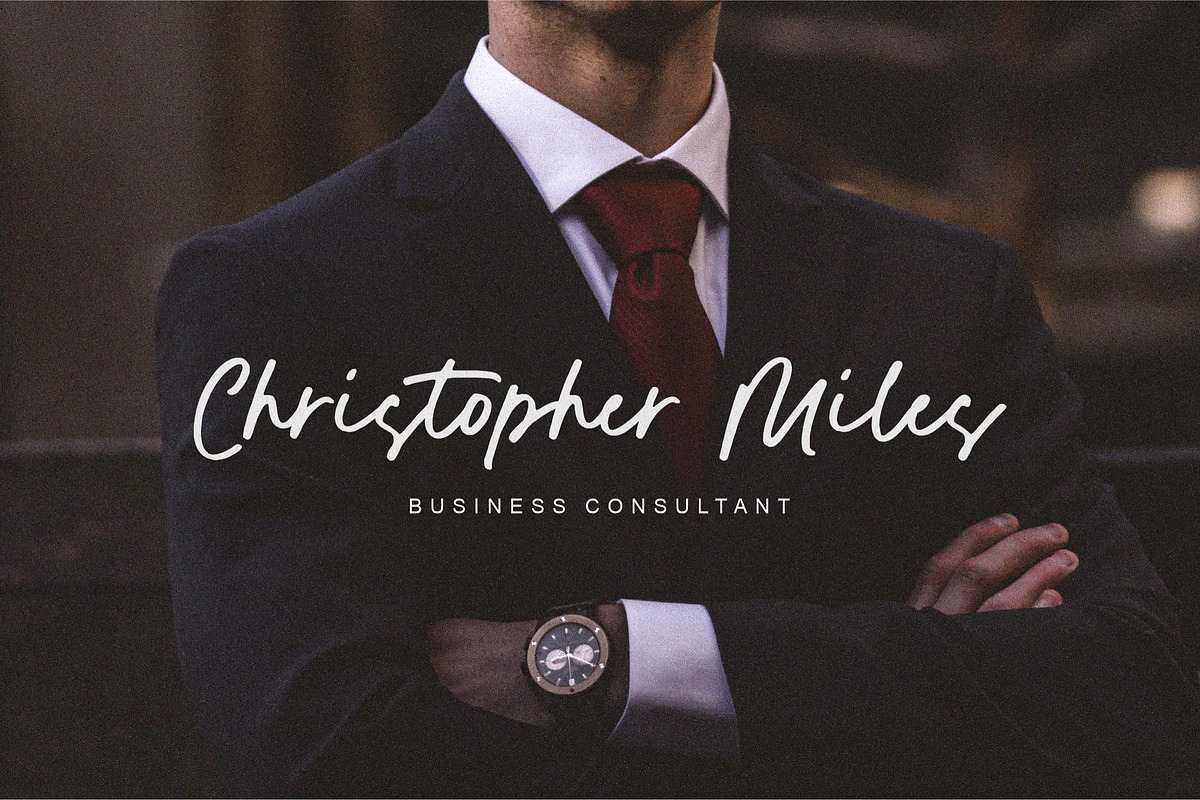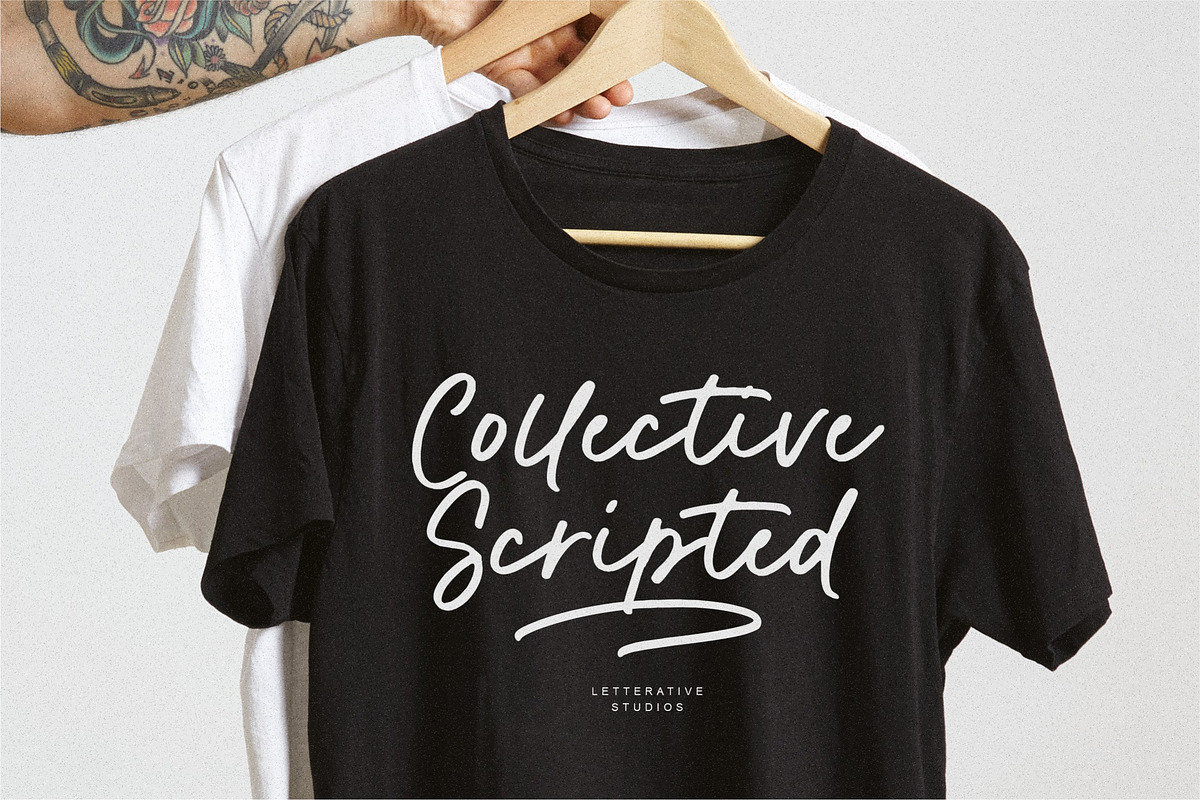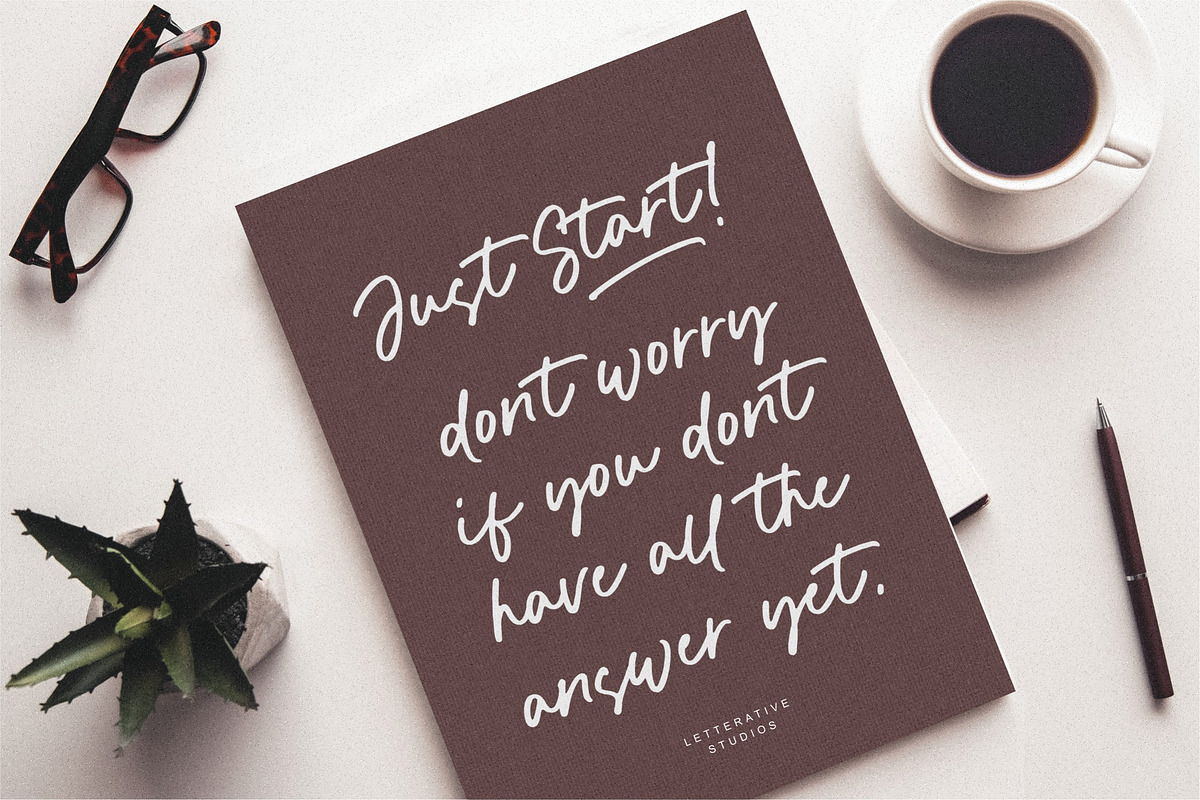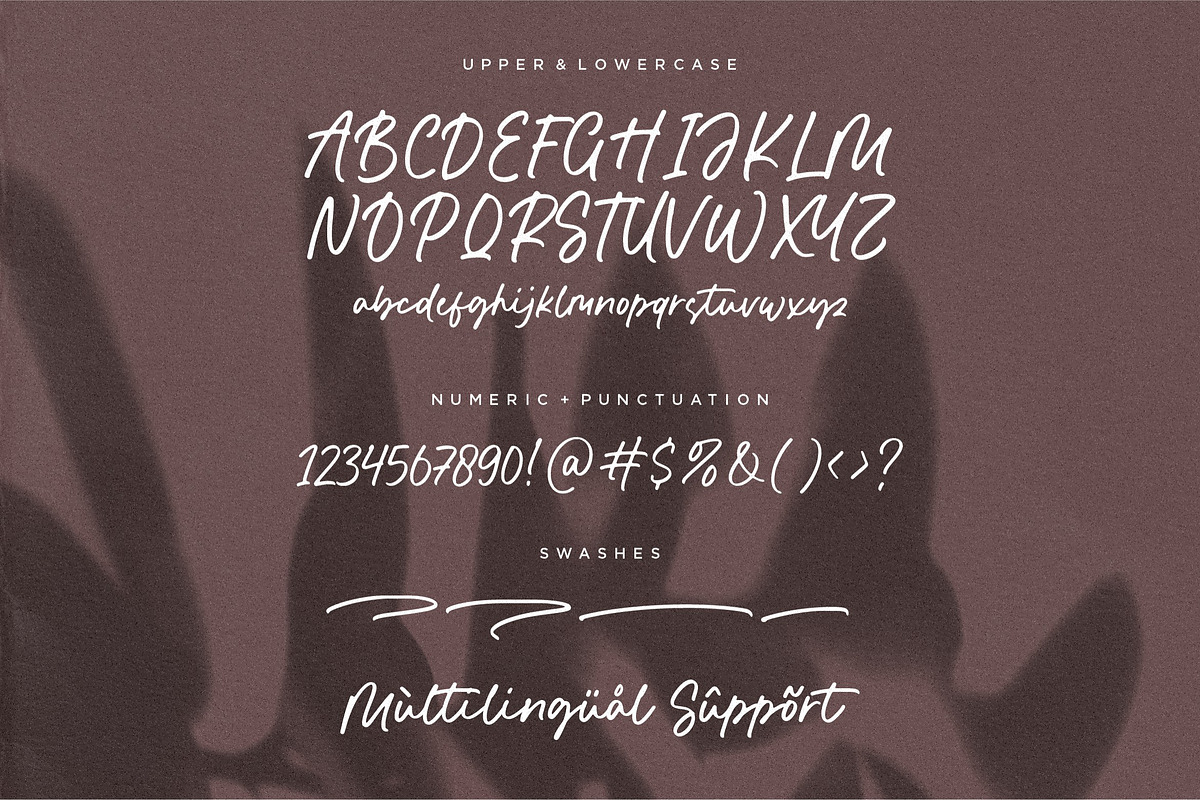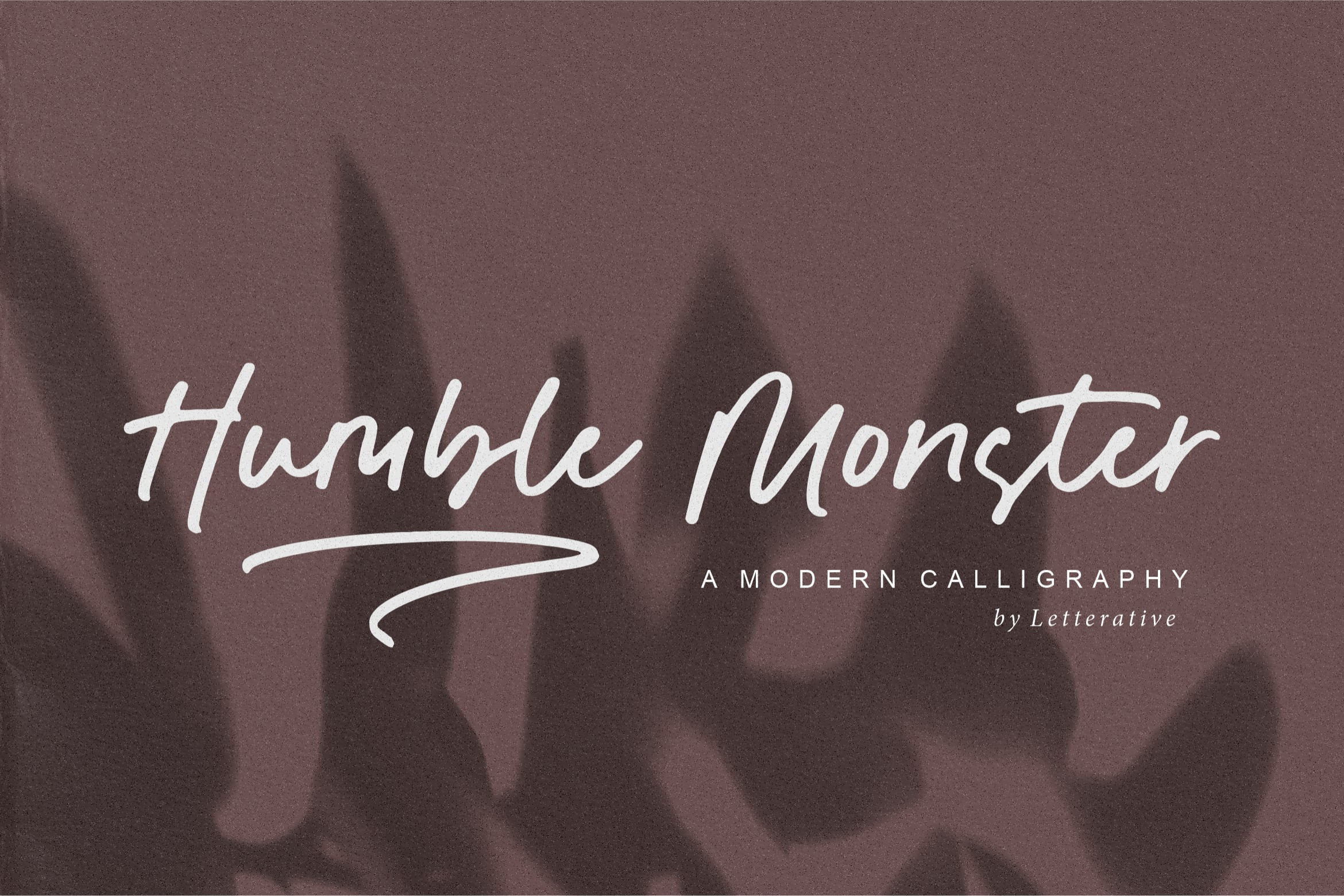
Humble Monster - Calligraphy Font
Introducing by Letterative Studio : Humble Monster Font
Humble Monster is a Modern Calligraphy Font.
Humble Monster is a genuinely original and modern Calligraphy script font. It has a casual style and it will enhance each of your favorite design ideas.